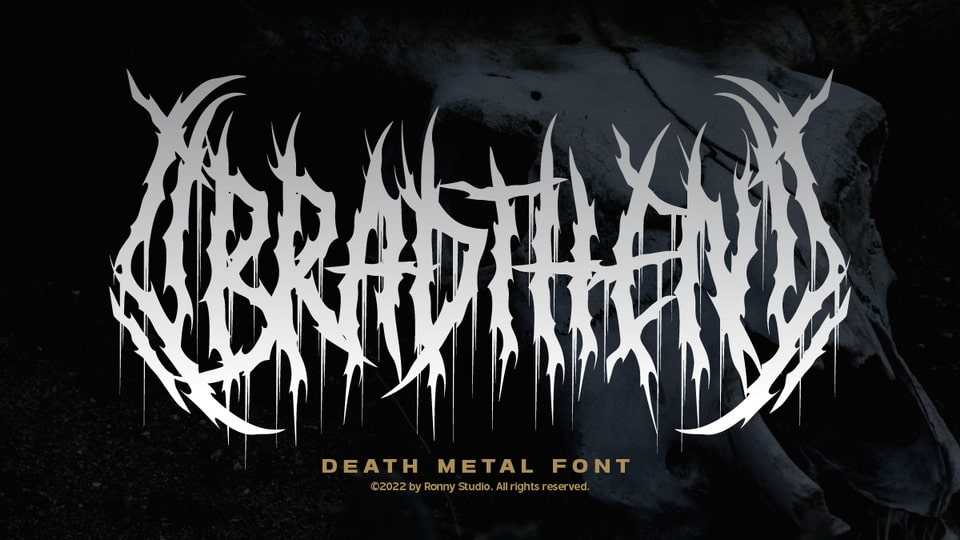
Download Bradthen font, a cool alternative for you to easily create a logo for your Underground band or whatever. Using alternate front and ending letters brings the font to life.